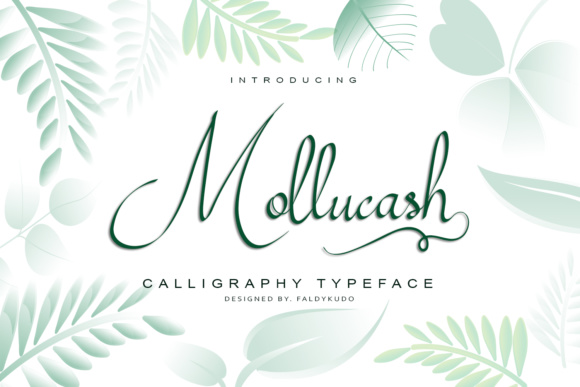
In a world where words dance elegantly across screens and paper, there's a font that captures the essence of grace and charm – introducing Mollucash, the enchanting script font that will transform your creative visions into stunning realities.
Step into a world of unparalleled beauty, where Mollucash's flowing lines and delicate curves weave a tapestry of elegance and sophistication. Each letter, meticulously crafted with a human touch, emanates a personality that speaks to the heart, evoking emotions and creating connections that transcend the boundaries of language.
With Mollucash, your words will dance across the page like a symphony of ink, captivating your audience with its effortless charm. Whether you're crafting heartfelt wedding invitations, designing eye-catching logos, or expressing your creativity through fashion quotes, Mollucash will elevate your designs to new heights of artistry.
Unleash your imagination and let Mollucash guide you on a journey of creative expression. From the sweeping curves of its ascenders to the graceful swashes that adorn its descenders, every element of this font has been meticulously designed to convey a sense of elegance and sophistication.
With Mollucash, your designs will radiate an aura of timeless beauty, leaving a lasting impression on all who behold them. Its versatility knows no bounds, adapting effortlessly to a wide range of projects, from personal branding and social media graphics to stunning website designs and marketing campaigns.
Embrace the power of Mollucash and watch as your words transform into breathtaking masterpieces. Dive into a world of creativity where elegance reigns supreme, and let Mollucash be your trusted companion on this artistic adventure.